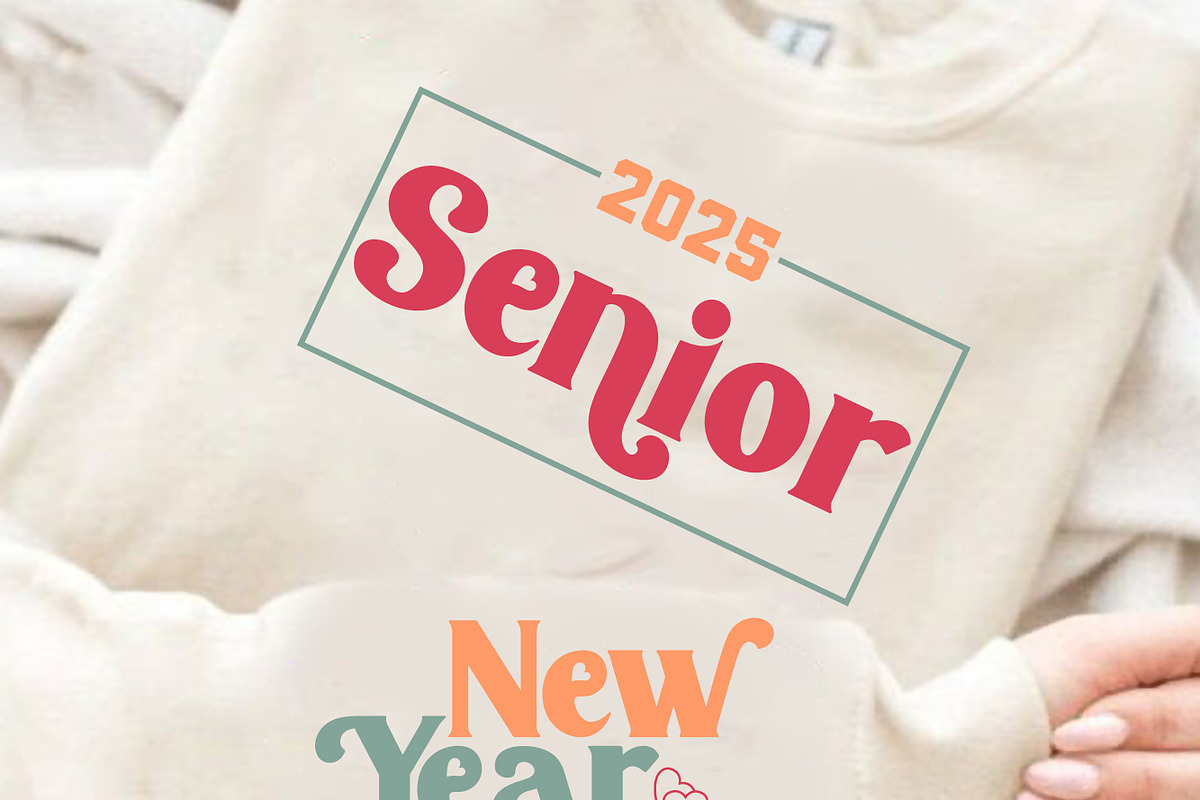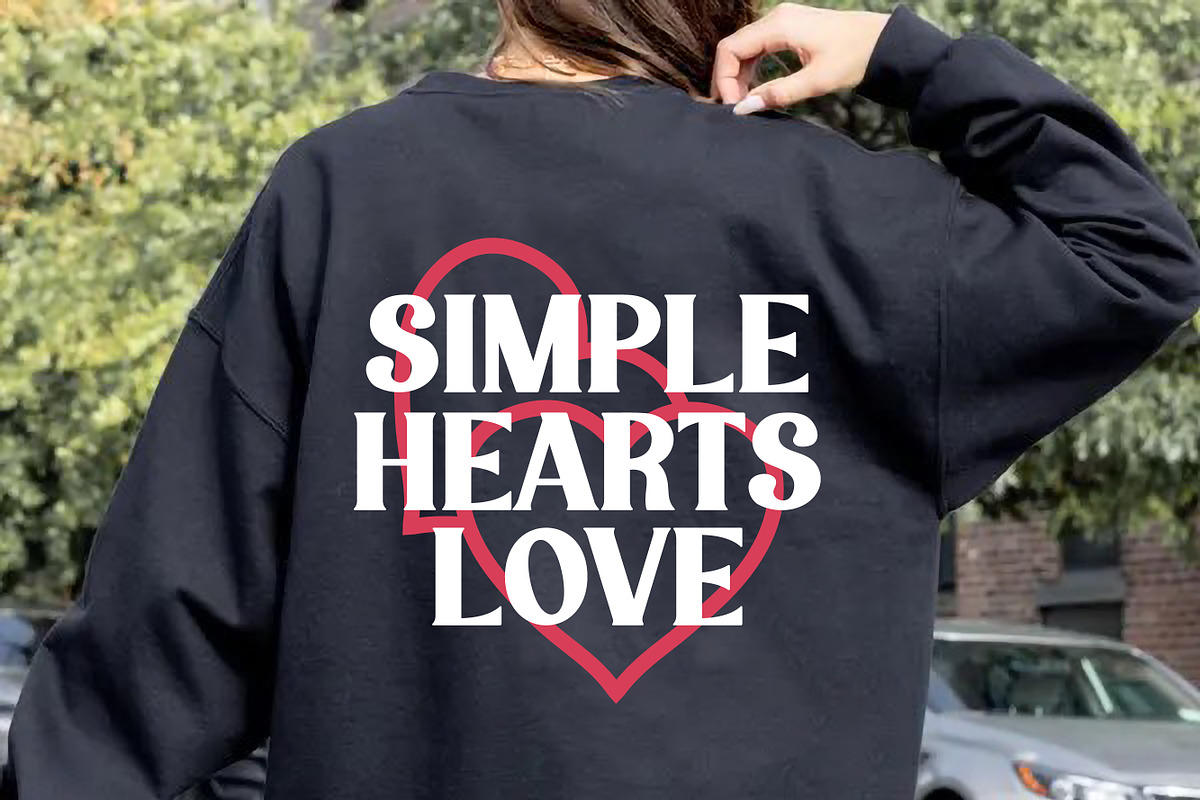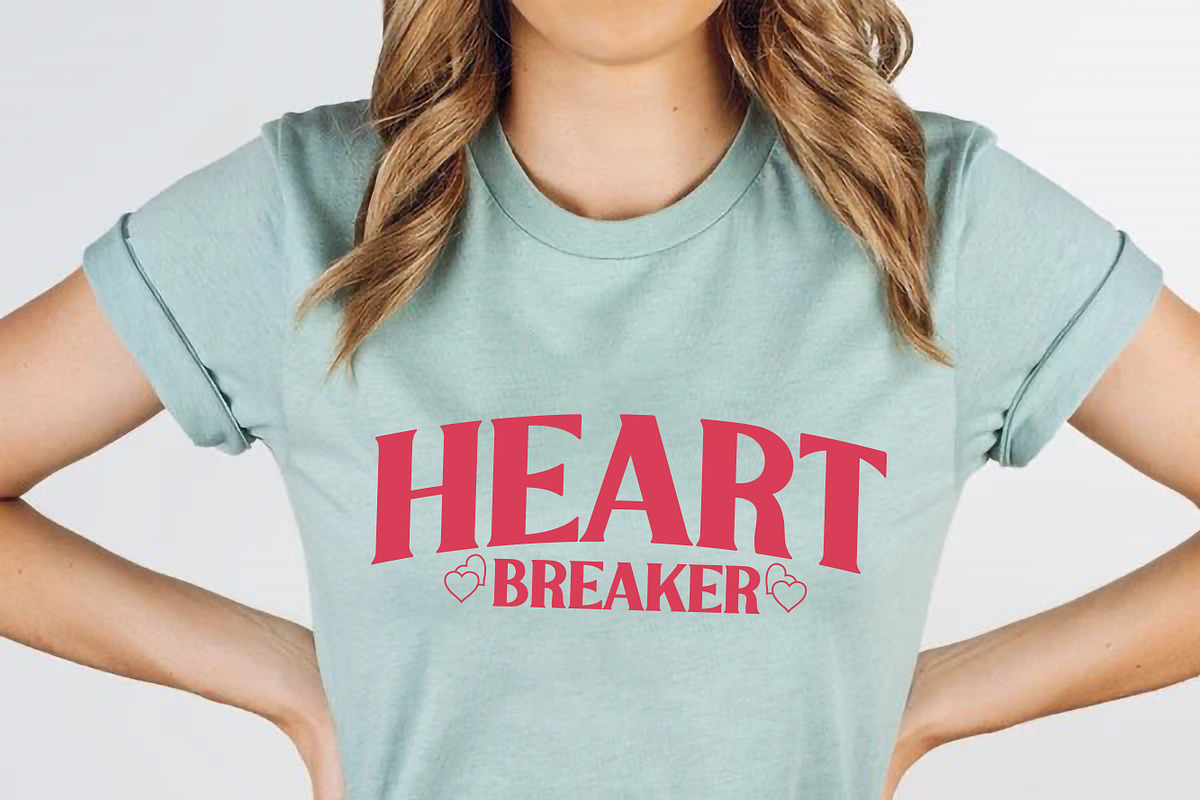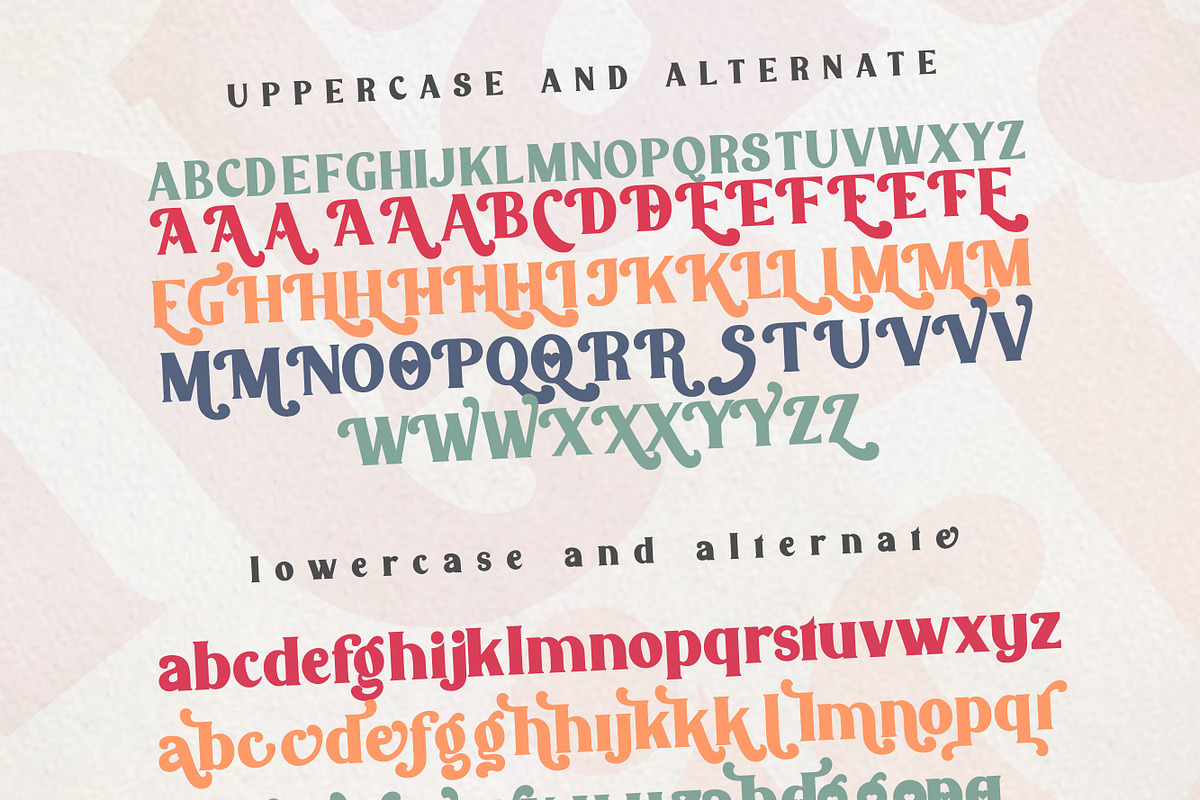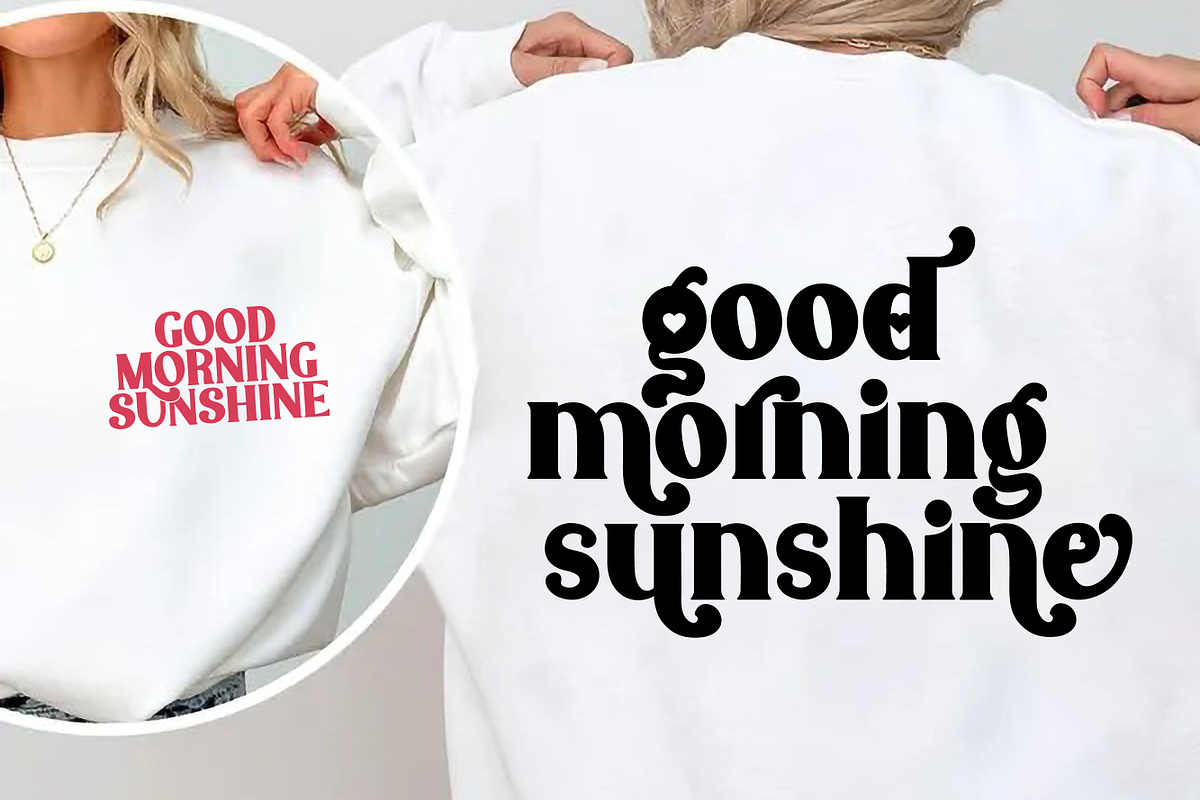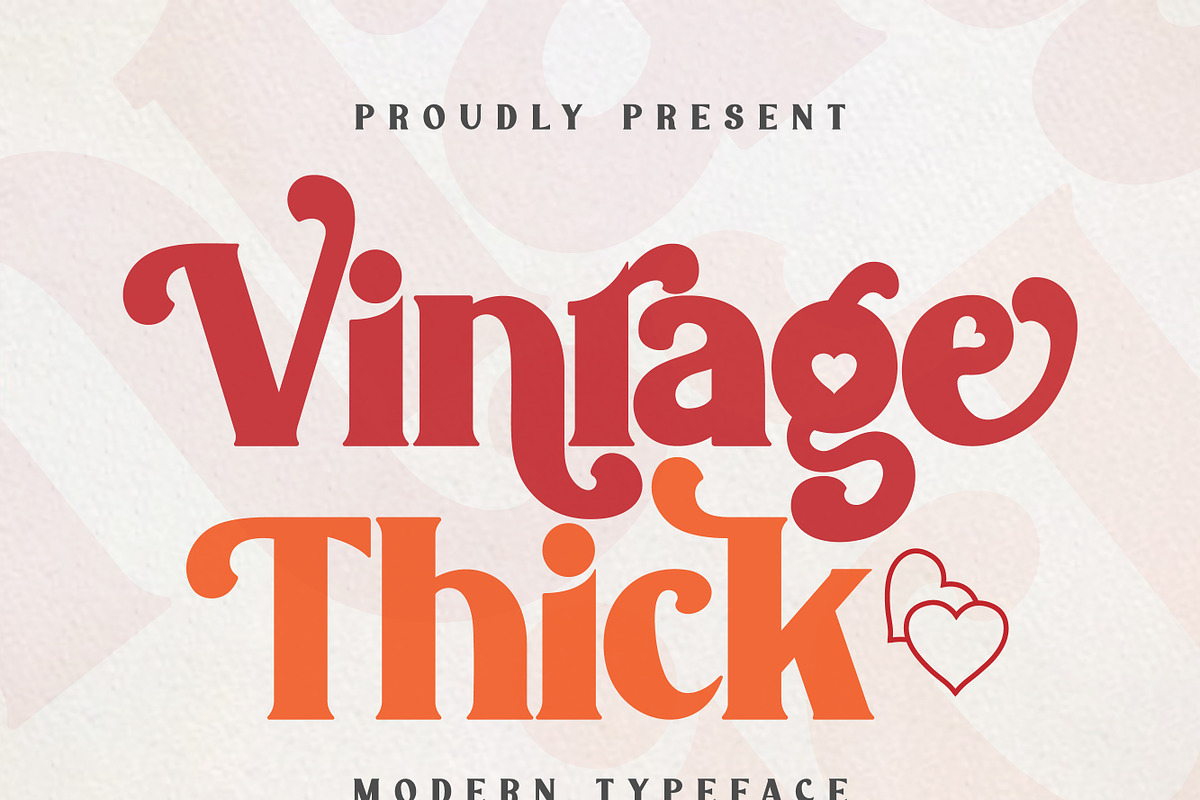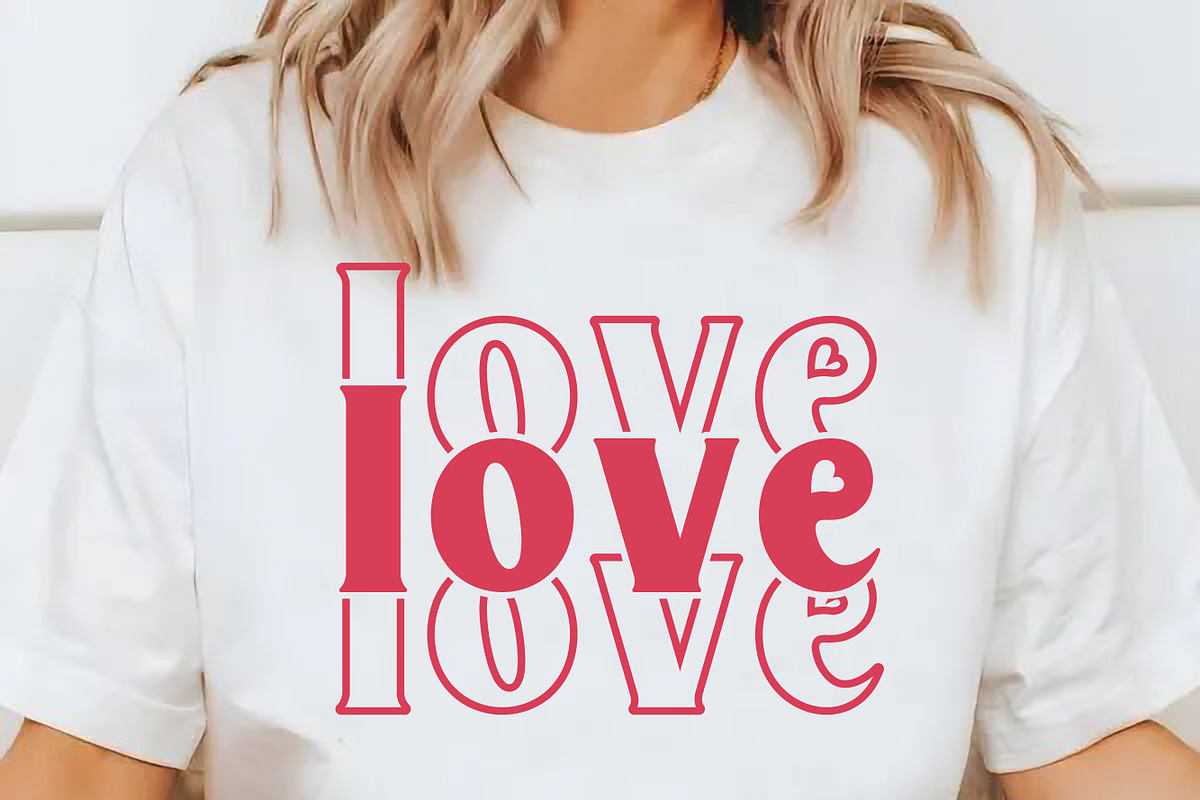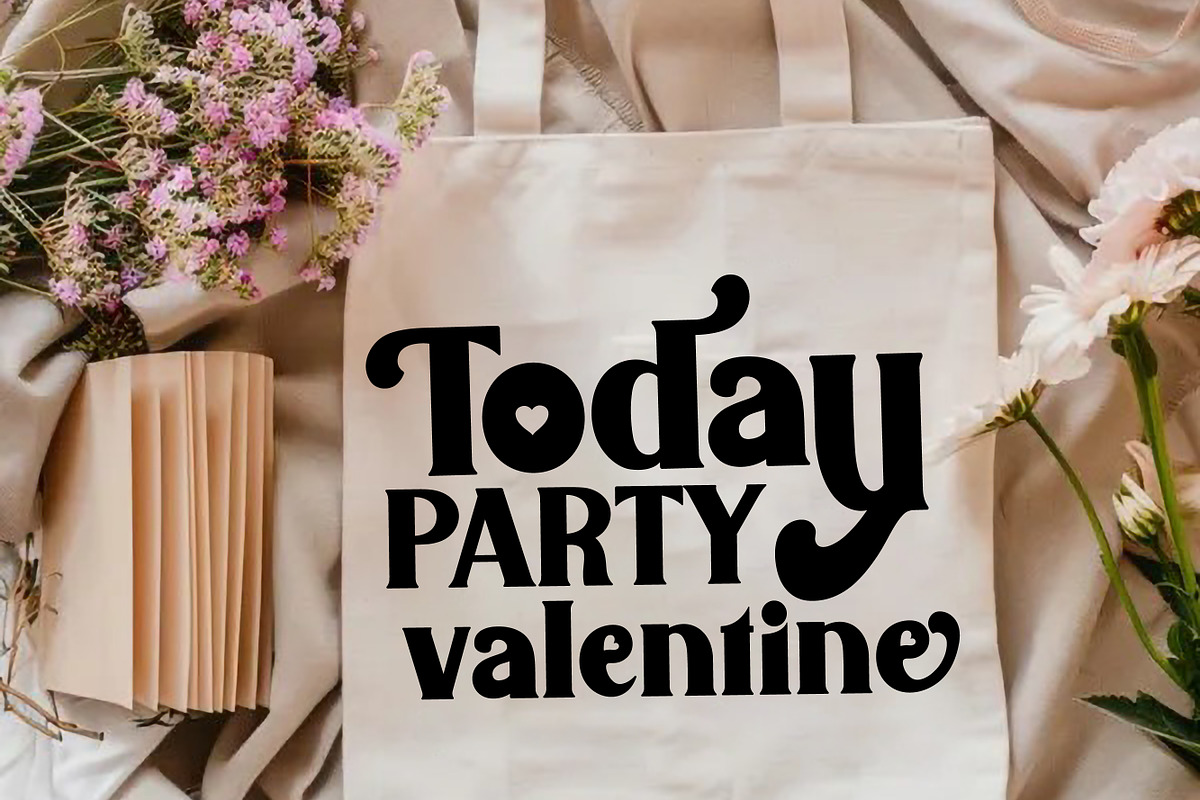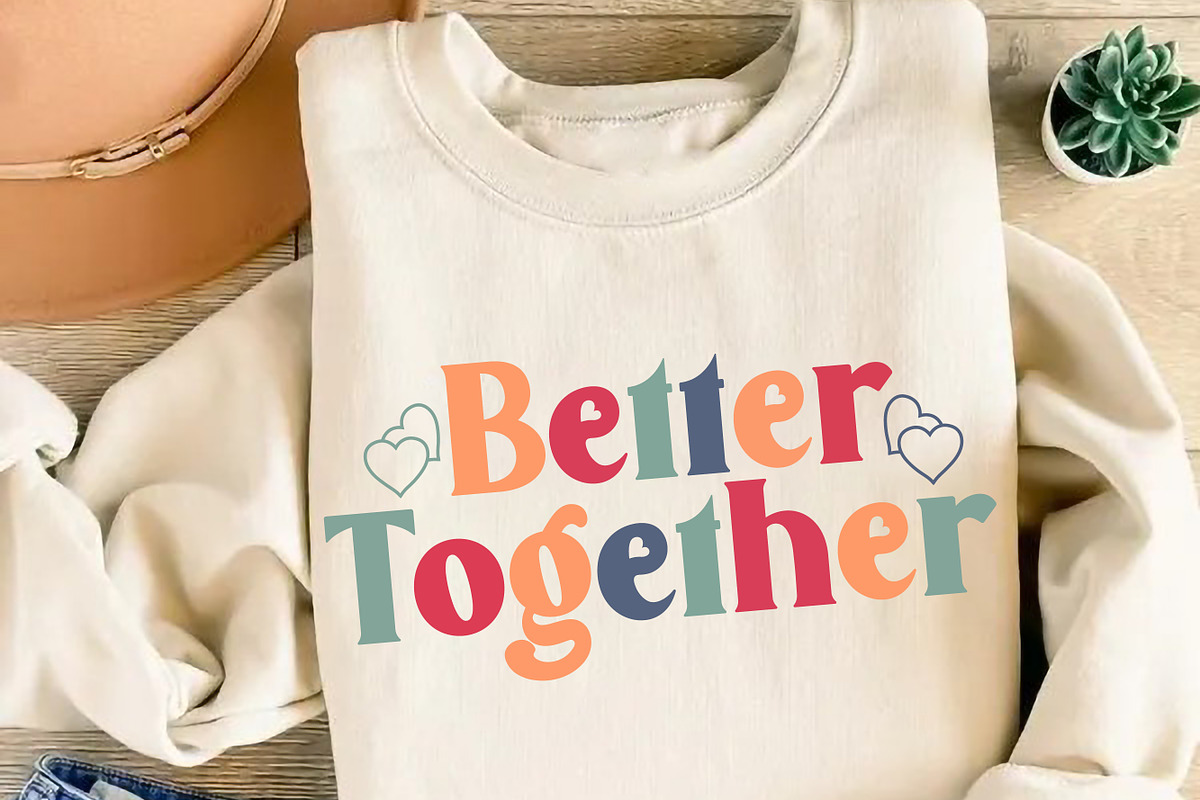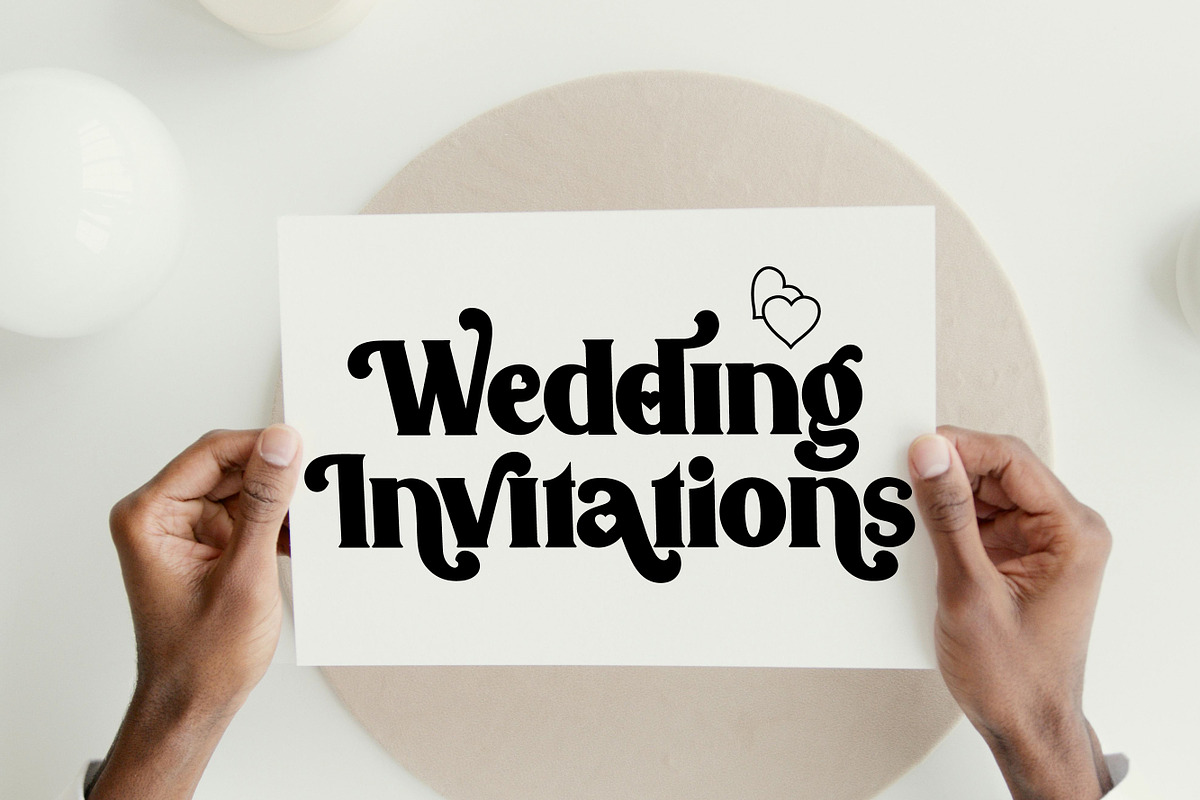
Vintage Thick
Vintage Thick is playfully nostalgic and delivers an incredible display font. A charming and elegant typeface that combines sophistication with a touch of romance. This font has the potential to bring each of your creative ideas to the highest level, be it branding, titles, wedding designs, invitations, signs, logos, labels and more!